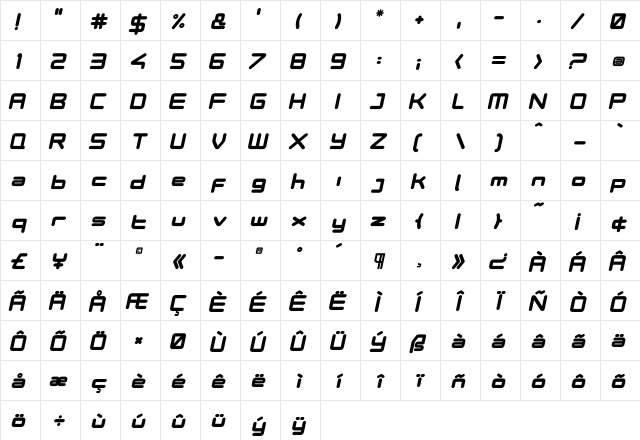
PhutureODC Ultra Font Preview
PhutureODC Ultra
Design Context for PhutureODC Typeface
PhutureODC is a composed and adaptable typeface that performs quietly and consistently across a wide range of design contexts.